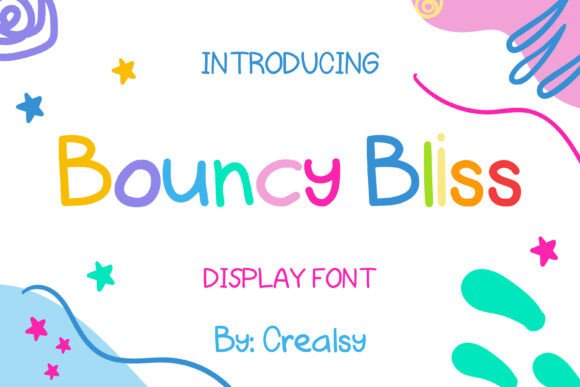
Discover the Playful Charm of Bouncy Bliss Font
I’ll never forget the time I was working on a children’s book project, and I just couldn’t seem to find the right font. The client wanted something playful, yet elegant, and I was determined to deliver. That’s when I stumbled upon Bouncy Bliss, a delightful font that has since become one of my go-to typefaces. In this article, I’ll share my experience with Bouncy Bliss, and explore its versatility, features, and uses.
A Personal Review of Bouncy Bliss
• ✅ Whimsical design that’s perfect for creative projects
• ✅ Highly versatile, suitable for various design applications
• ✅ Delicate artistry that adds a touch of elegance to any design
• ✅ Extensive OpenType features, including glyphs and stylistic alternates
While Bouncy Bliss is an excellent font, it’s not without its quirks. For instance:
• 🤔 Some characters may appear a bit cramped at smaller font sizes
• ⚠️ Limited support for non-English languages
The Backstory of Bouncy Bliss
Bouncy Bliss was designed by a team of creative typographers who wanted to create a font that would bring joy and playfulness to designs. Inspired by the whimsy of children’s literature and the elegance of wedding invitations, Bouncy Bliss was crafted to be a versatile and delightful typeface.
Q: What is Bouncy Bliss font?
A: Bouncy Bliss is a playful, elegant font designed for creative projects, including children’s literature, wedding invitations, and social media content.
Q: What are OpenType features?
A: OpenType features are advanced typographic features that allow designers to access alternative characters, glyphs, and stylistic alternates. Bouncy Bliss supports a range of OpenType features that can enhance your designs.